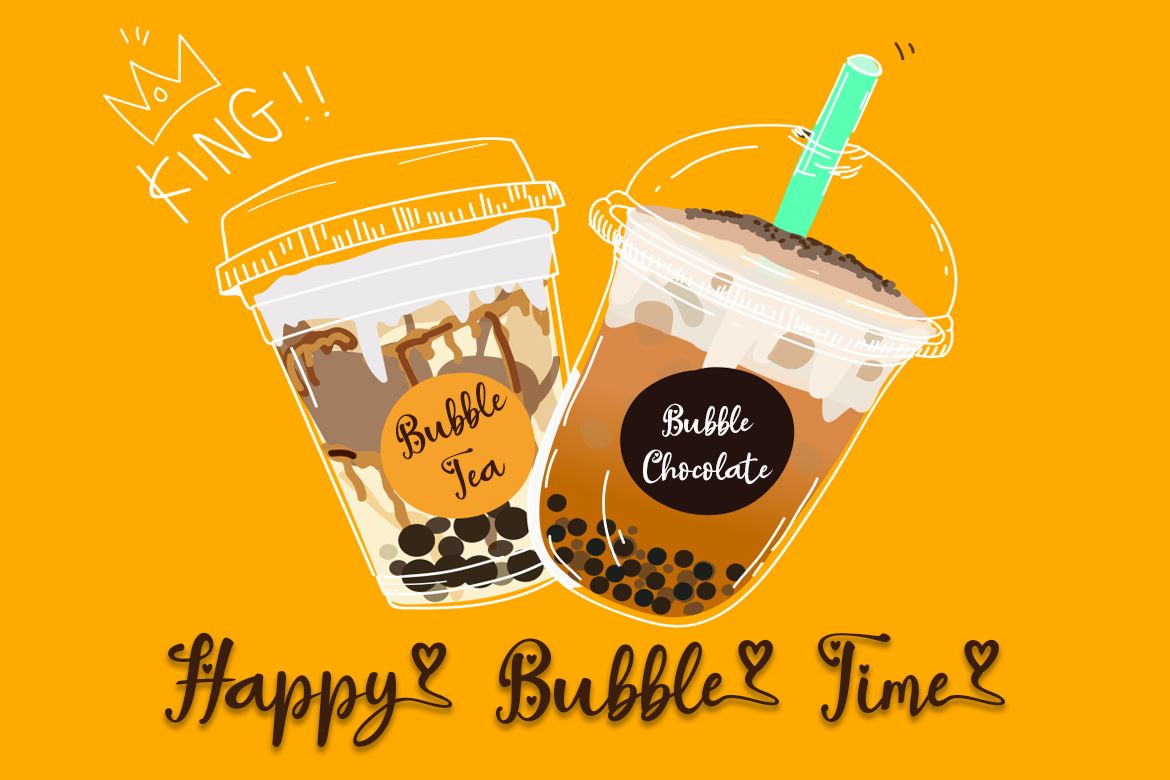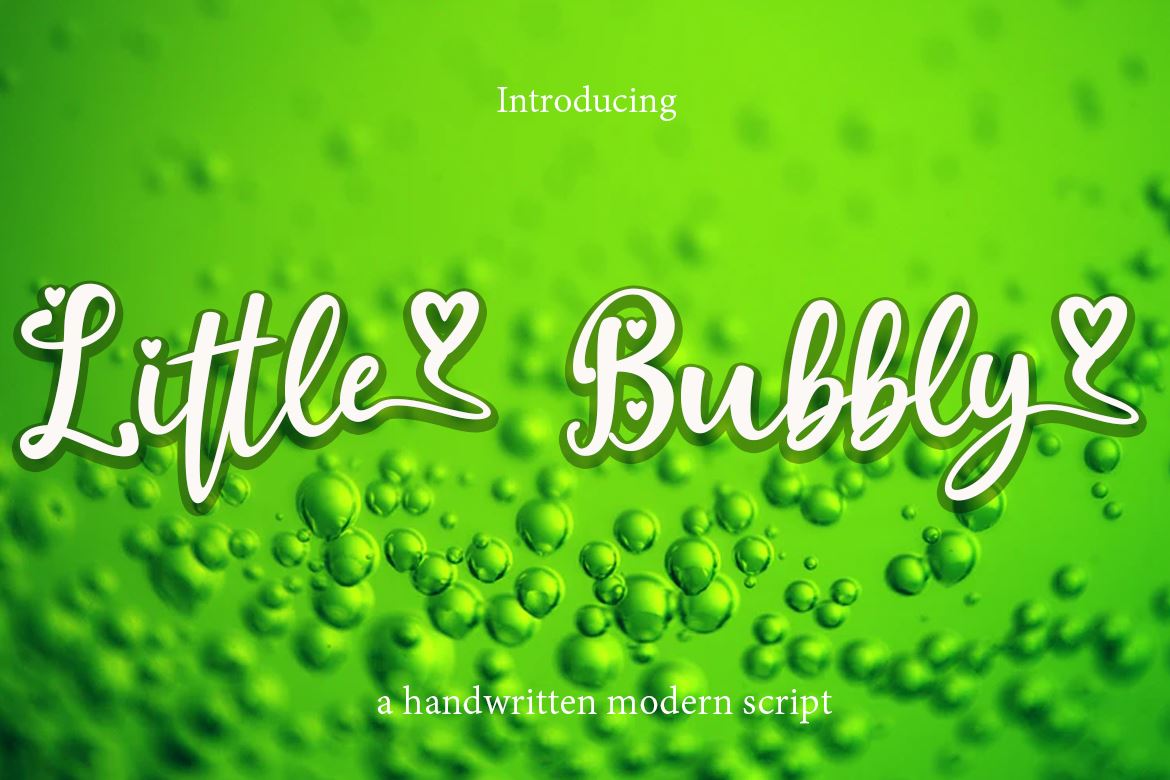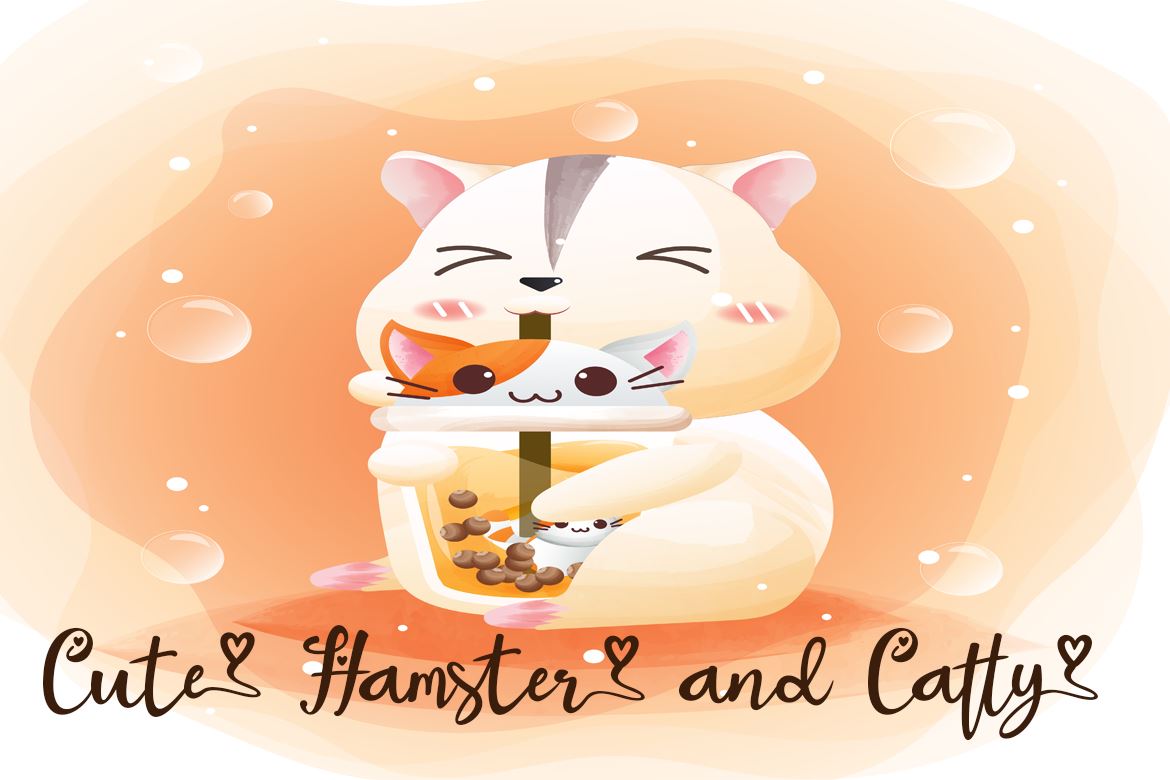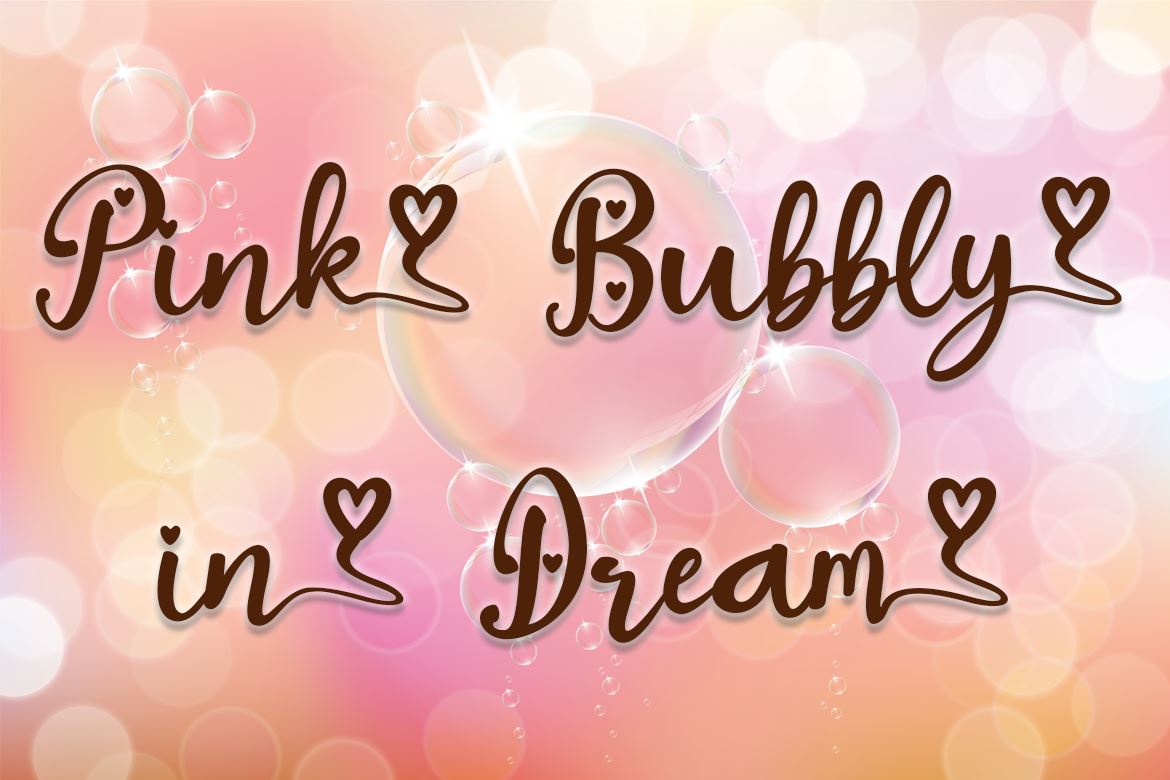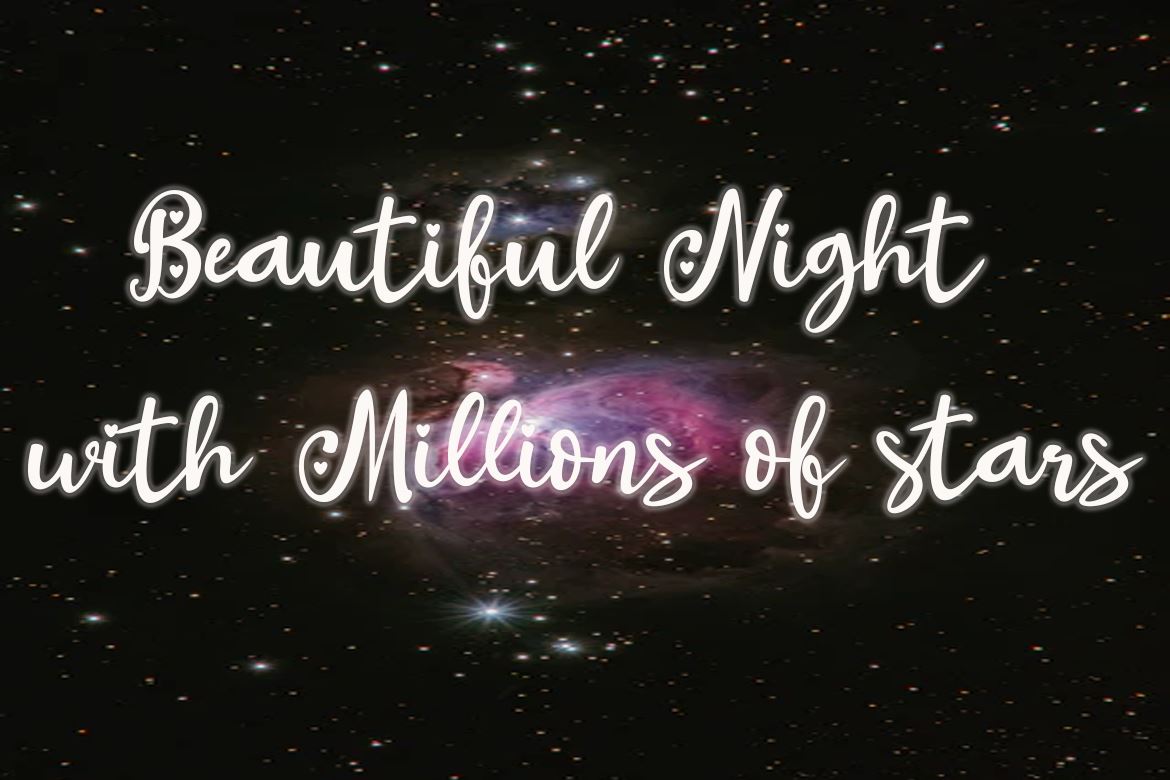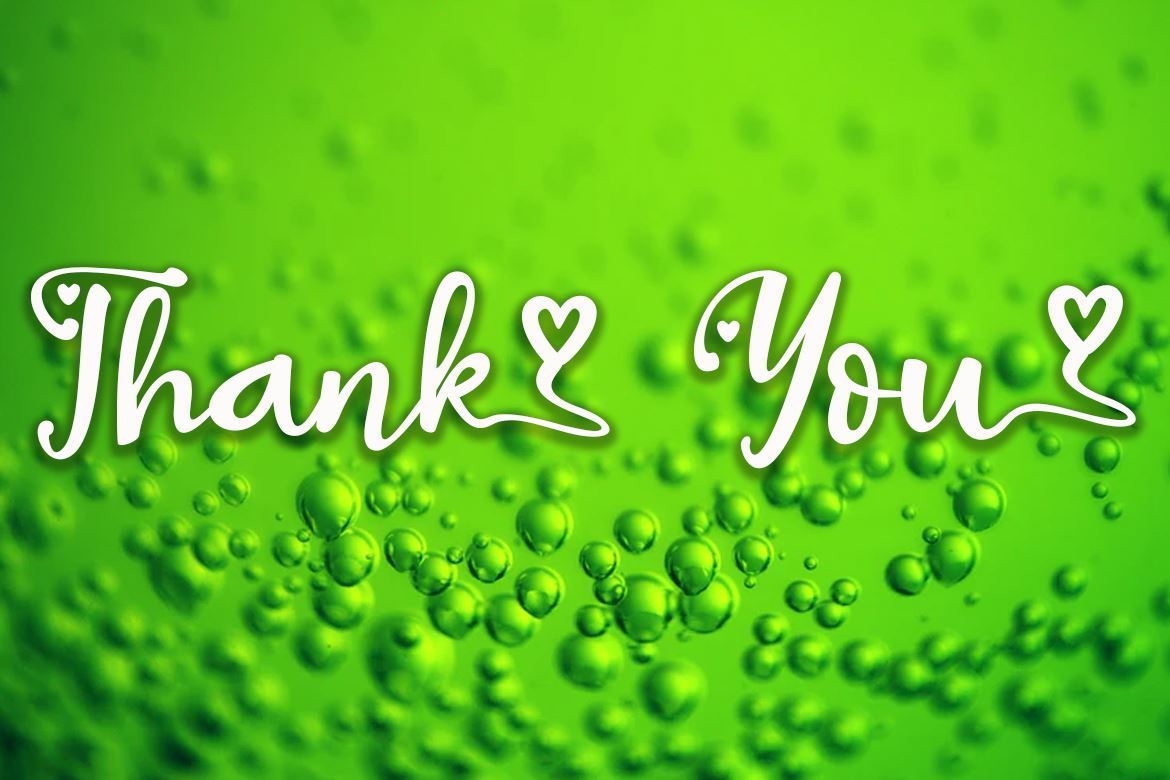
About Little Bubbly
Hey! Thanks for visiting my shop! Little Bubbly feels equally charming and elegant. It looks stunning on wedding invitations, thank you cards, quotes, greeting cards, logos, business cards and every other design which needs a handwritten touch. This font is PUA encoded which means you can access all of the glyphs and swashes with ease! It features a varying baseline, smooth lines, gorgeous glyphs and stunning alternates. Files include : -Little Bubbly OTF -Little Bubbly TTF -WOFF